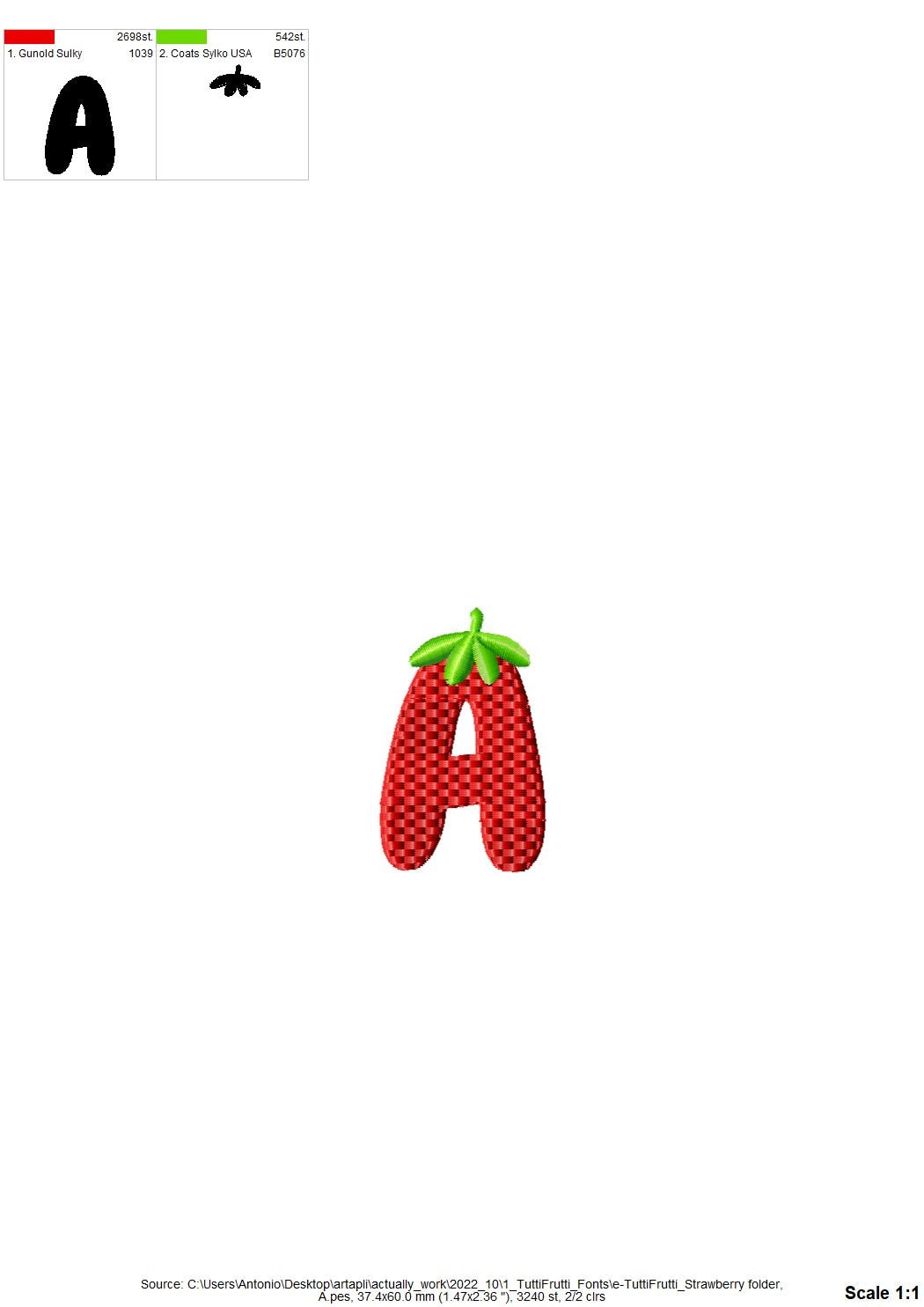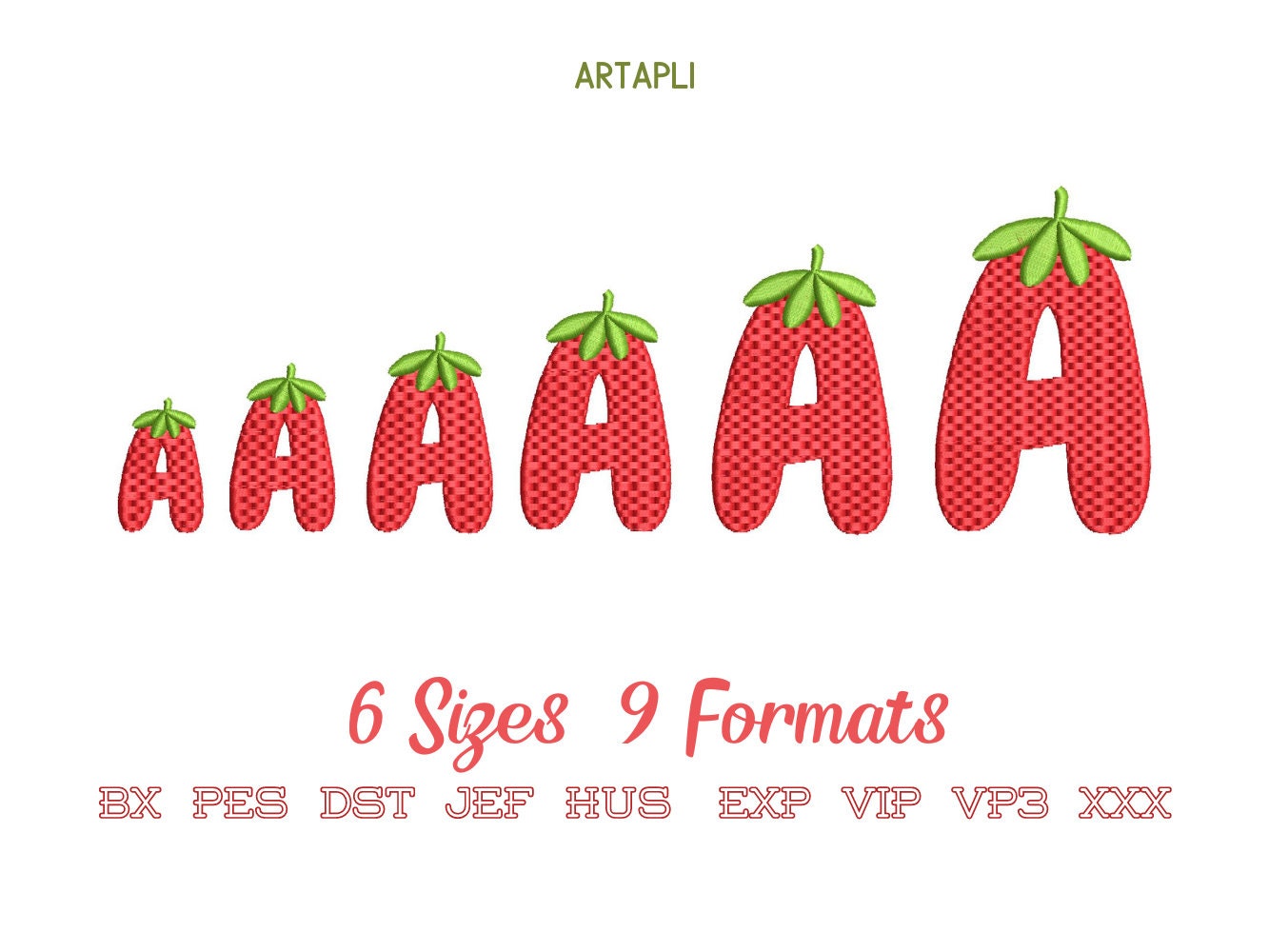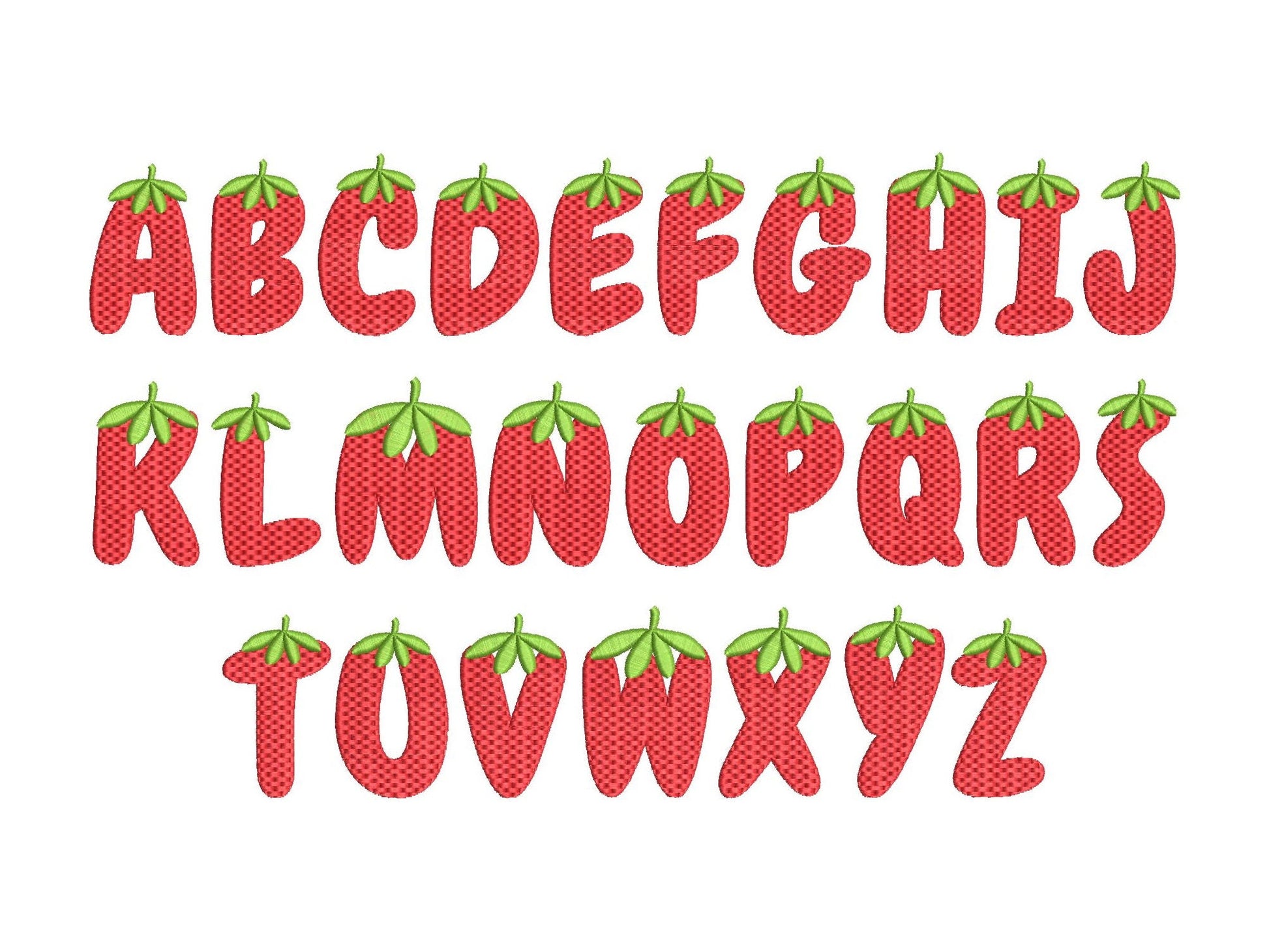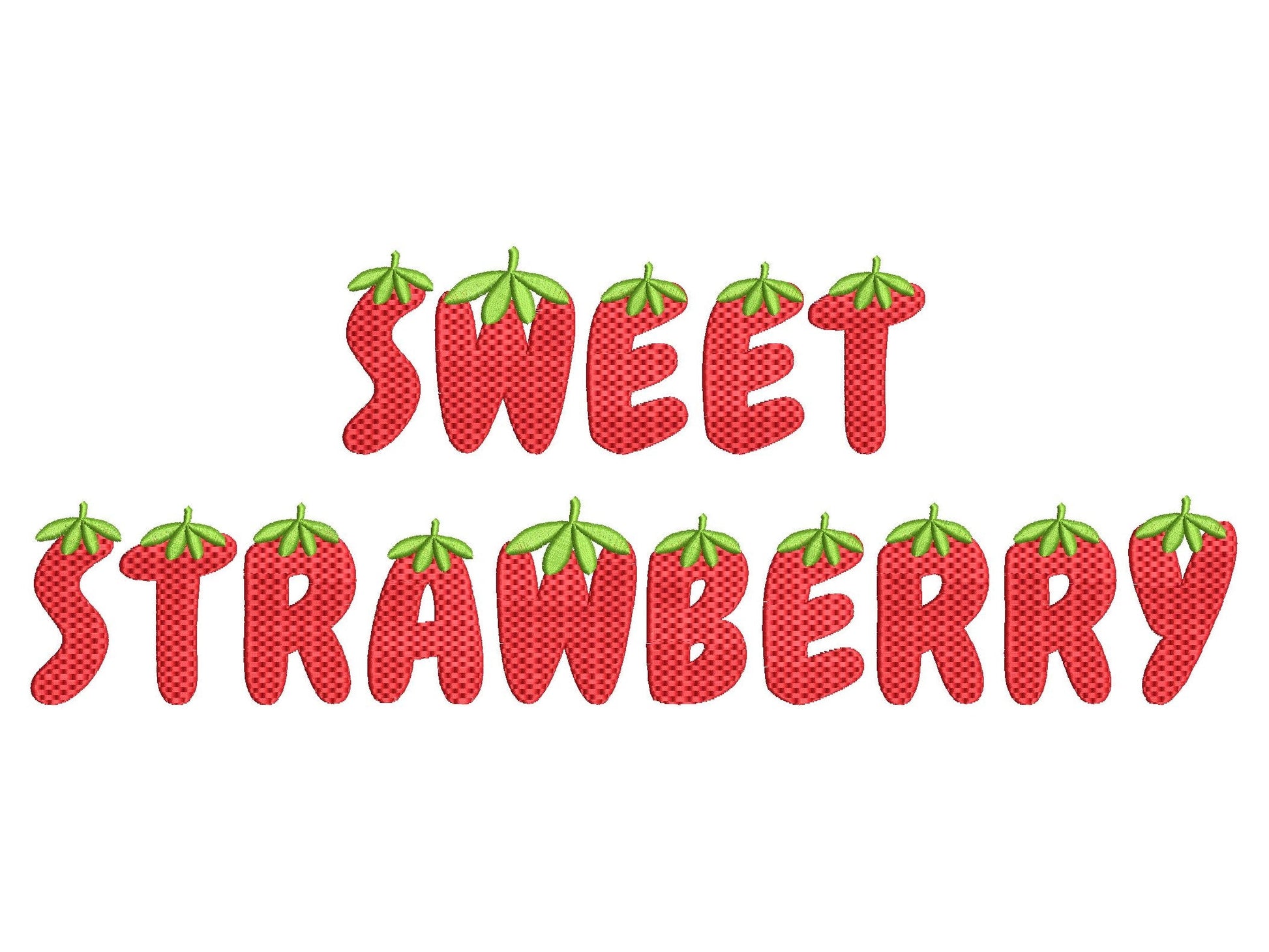
Tutti Frutti Strawberry Berry Font
Capital letters A to Z decorated like strawberries, in six sizes: 1.3, 1.6, 2, 2.3, 2.8 and 3.4 inches. Mix it with other fruit fonts.
- Strawberry font
- Capital letters A-Z
- 6 sizes, 1.3 to 3.4 in